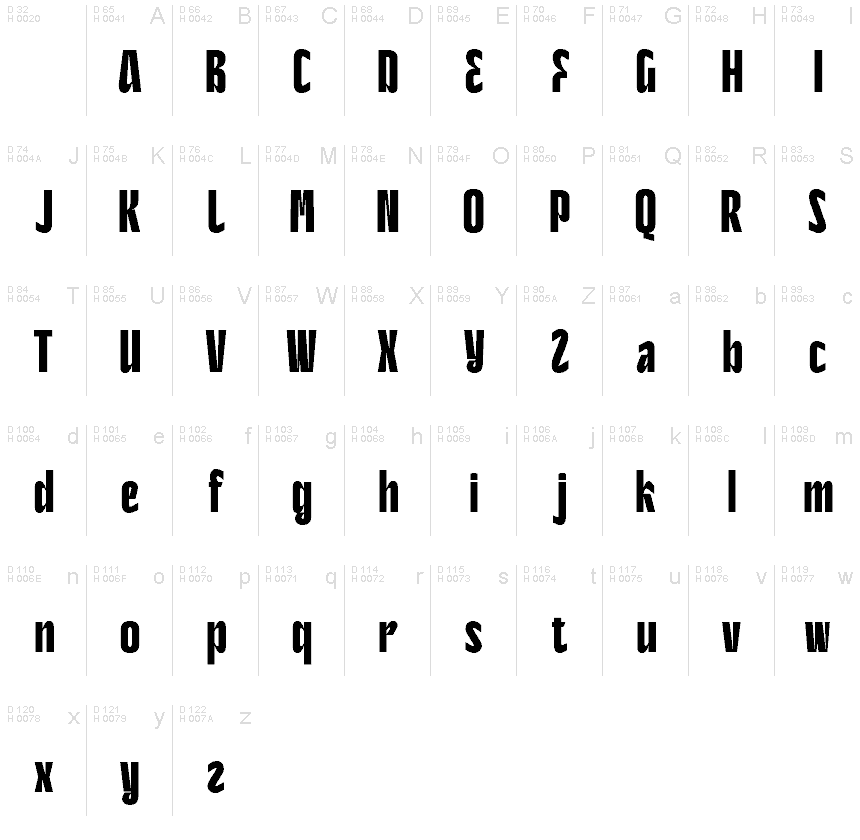
CS Medora Regular Demo
CS Medora font by Craft Supply Co. is a free modern display font that has retro, geometric, and modernist-rounded-angular influences along with condensed legibility features present in both lower- and uppercase letters. Inherently impactful, the style of this product combines geometric shapes with futuristic detailing to form outfits with great contemporary balance.